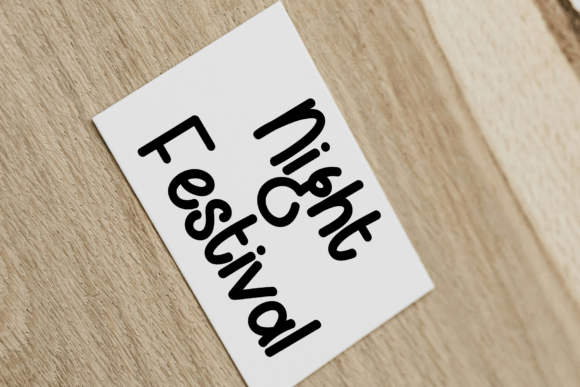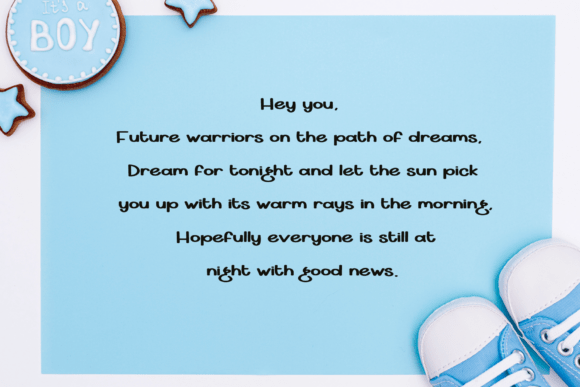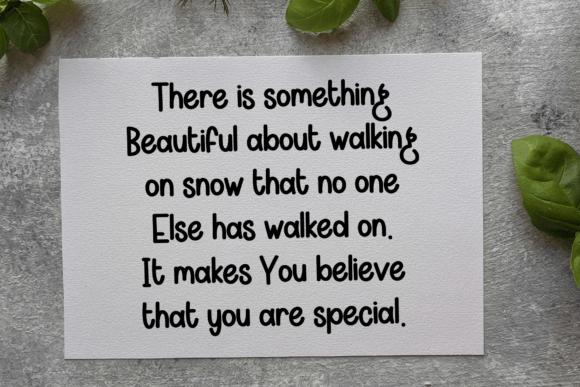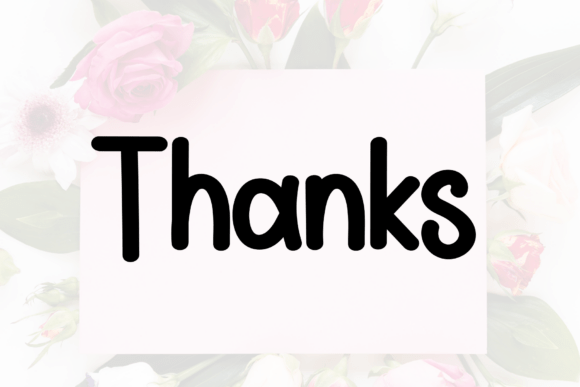
The Ultimate Guide to Flower Newyear Font: Elevate Your Designs with Elegance and Whimsy
What is Flower Newyear Font?
Flower Newyear Font is a stunning handwritten font that looks like it was drawn with a marker. Its relaxed and sporty feel makes it perfect for a wide range of design projects, from branding and logos to wedding supplies, greeting cards, fashion lookbooks, and marketing promotions. This font is ideal for designers, crafters, and creative hobbyists who want to add a touch of elegance and whimsy to their work.
- Unique and eye-catching handwritten style
- Relaxed and sporty feel that’s perfect for casual designs
- Looks luxurious and elegant, making it suitable for high-end projects
- Easy to read and works well in large and small sizes
- Versatile and can be used for a wide range of design projects
Small Quirks and Limitations 🤔
- May not be the best choice for very formal or traditional designs
- Some characters may require manual kerning for optimal spacing
- Limited availability of language support (check with the font foundry for specifics)
The Story Behind Flower Newyear Font
Although the actual story behind Flower Newyear Font may be unknown, it’s easy to imagine that it was created by a designer who loves flowers, handwriting, and all things whimsical. Perhaps the designer was inspired by the beauty of nature and wanted to capture the essence of fresh flowers in a font. Whatever the story, Flower Newyear Font is a true gem that brings a touch of elegance and playfulness to any design.
Q: What type of designs is Flower Newyear Font best suited for?
A: Flower Newyear Font is versatile and can be used for a wide range of designs, including branding, logos, wedding supplies, greeting cards, fashion lookbooks, and marketing promotions.
Q: Does Flower Newyear Font support OpenType features?
A: Yes, Flower Newyear Font supports OpenType features, including glyphs, stylistic alternates, and more. Experiment with these features to add more personality to your text.